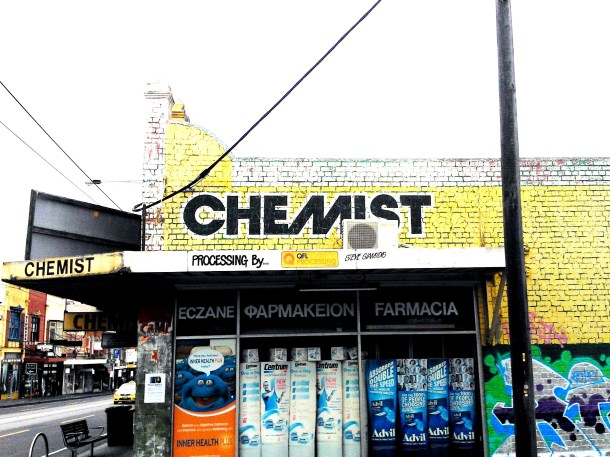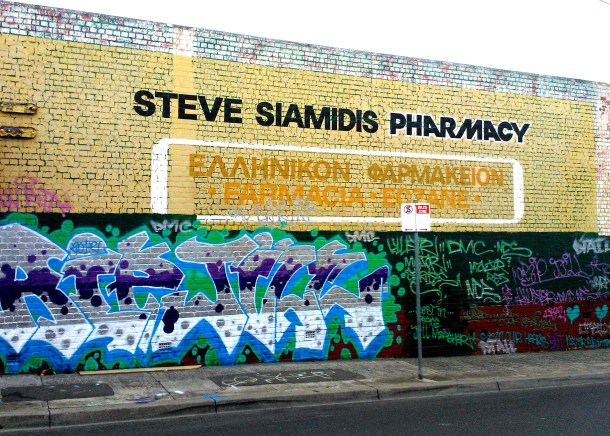
Steve Siamidis Pharmacy
Sydney Rd, Brunswick
I wouldn’t call this one a ghost sign so much, as the business still operates by the looks of things, but the type is so striking I had to put it in. Check that M! I’m going to try and find out what typeface this might be.
I hope you’ll excuse the colouring here. I’m trying not to get all hipstermatic on these, just playing around with the contrast and colour (I promise, no filters,) … These overcast days aren’t helping my cause.
There’s an absolute cracker right next dorr to this building with a great big faded Nestle ghost sign. I’m going back for that one when the weather clears a little.